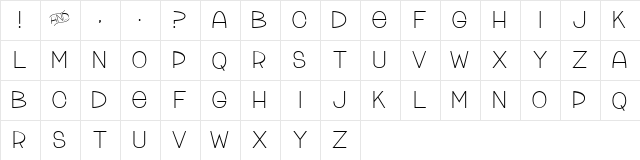
Tattle & Tales Regular
Design Context for Tattle & Tales Typeface
Tattle & Tales offers clean, dependable letterforms without strong stylistic allegiance, making it a practical choice for designers who need flexibility.
Pro Tip: Use Tattle & Tales in both headline and body roles to test its range before committing to a single application.